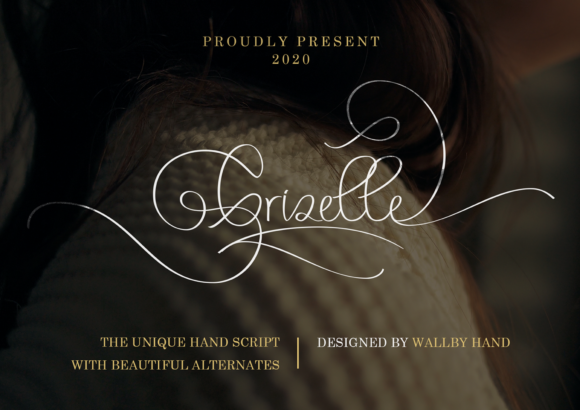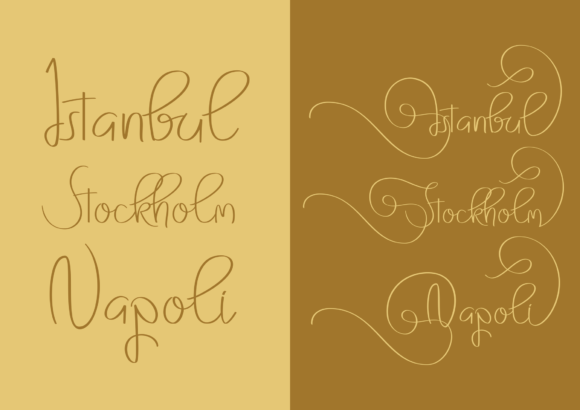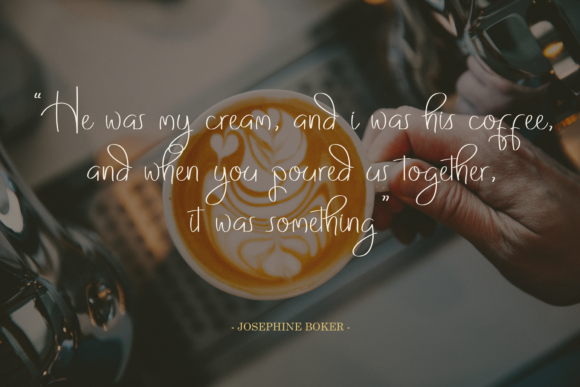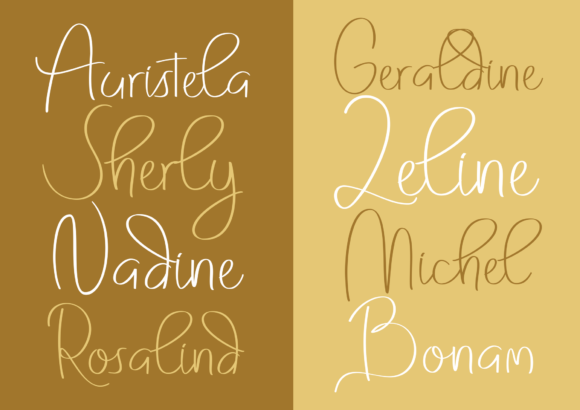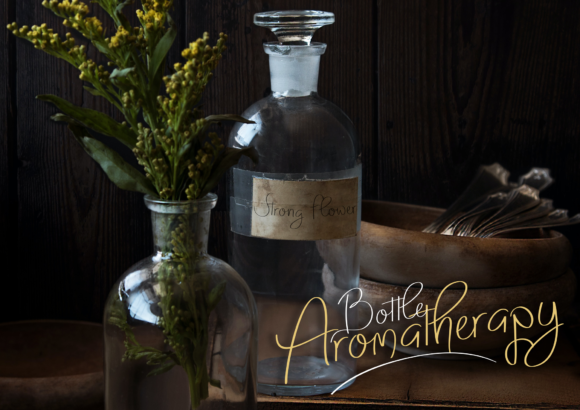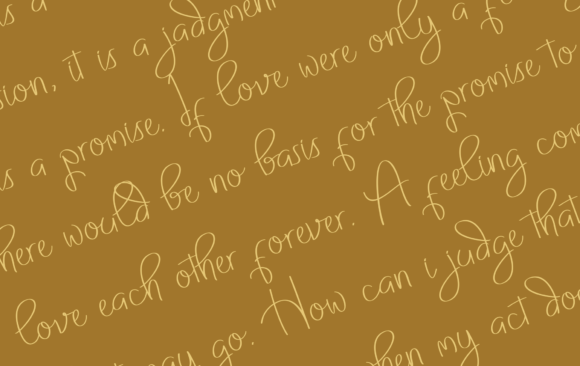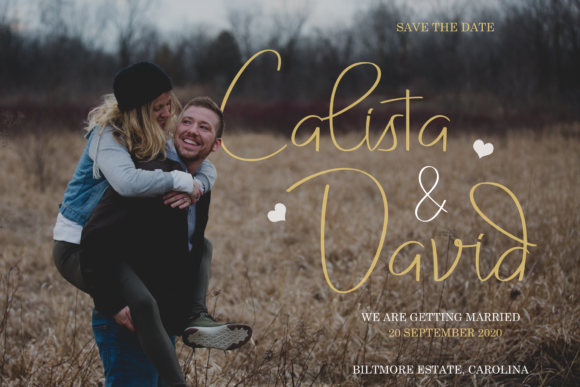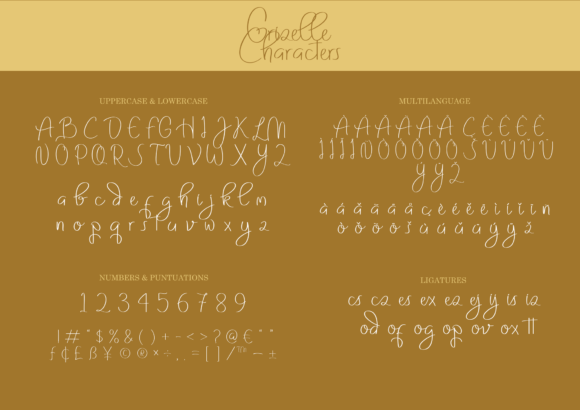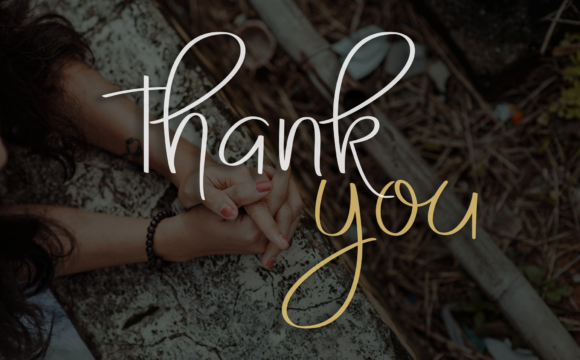
Grizelle Font
About Grizelle Font
Grizelle is a sophisticated script font. This is a beautiful combination of timeless elegance and authentic calligraphy. It features an incredibly classic style, while still keeping a friendly feel. Grizelle is the perfect font for making original and outstanding designs.